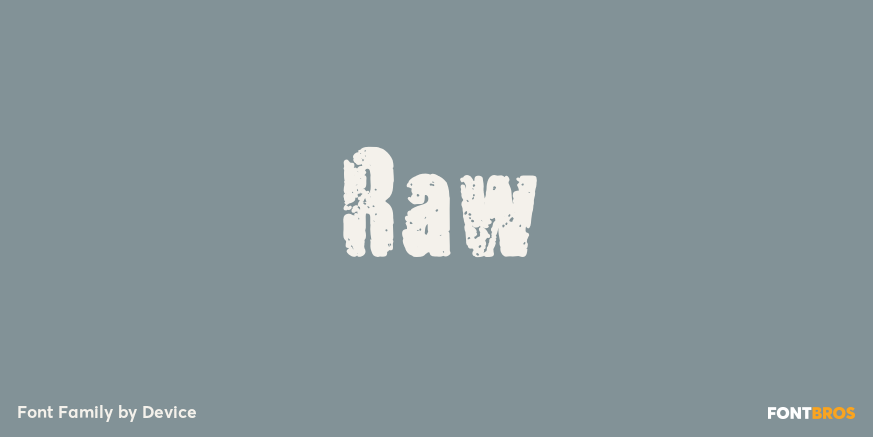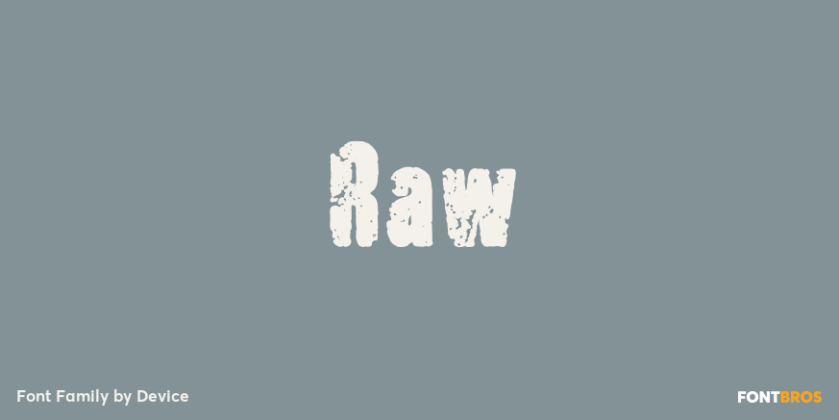
Raw
Raw was designed in 2006 for Shelter, the UK homeless charity. It was originally called ?Cathy?, after the film ?Cathy Come Home?, which was instrumental in inspiring the founding of the charity. Now reworked with more ?inkiness?, it is released as pert…